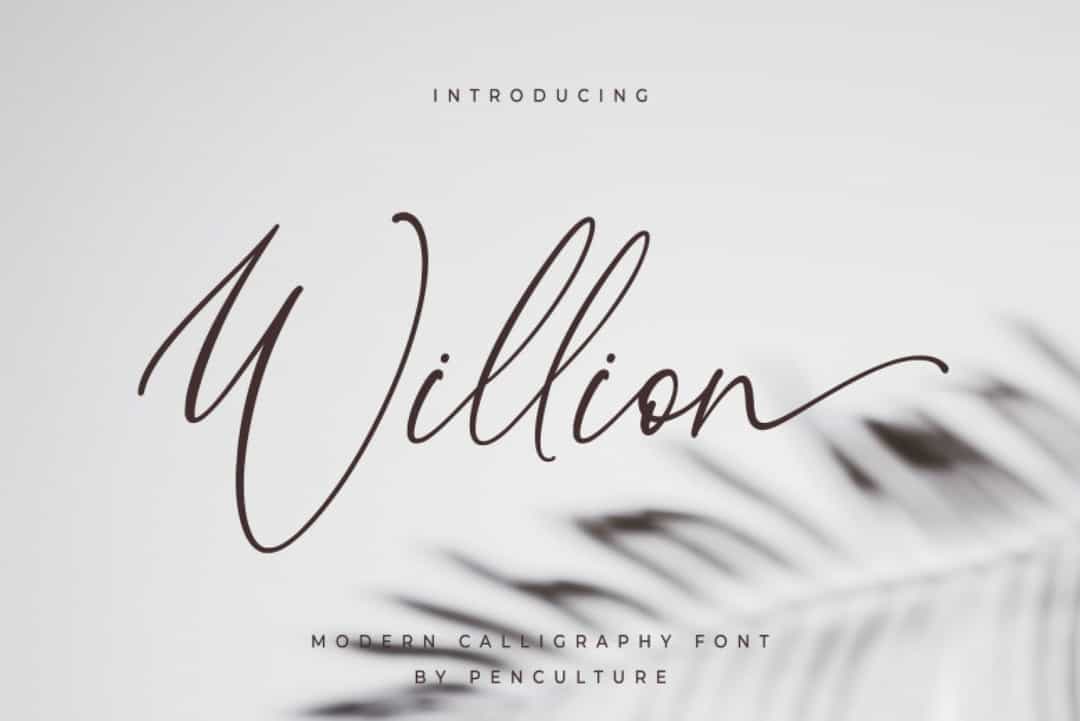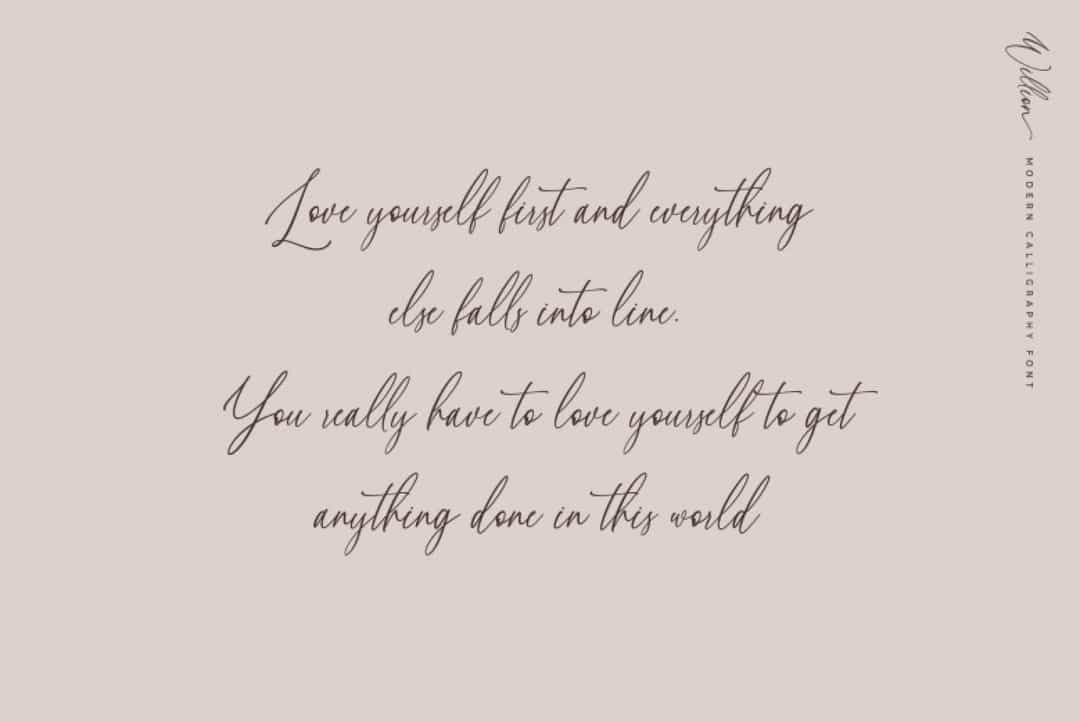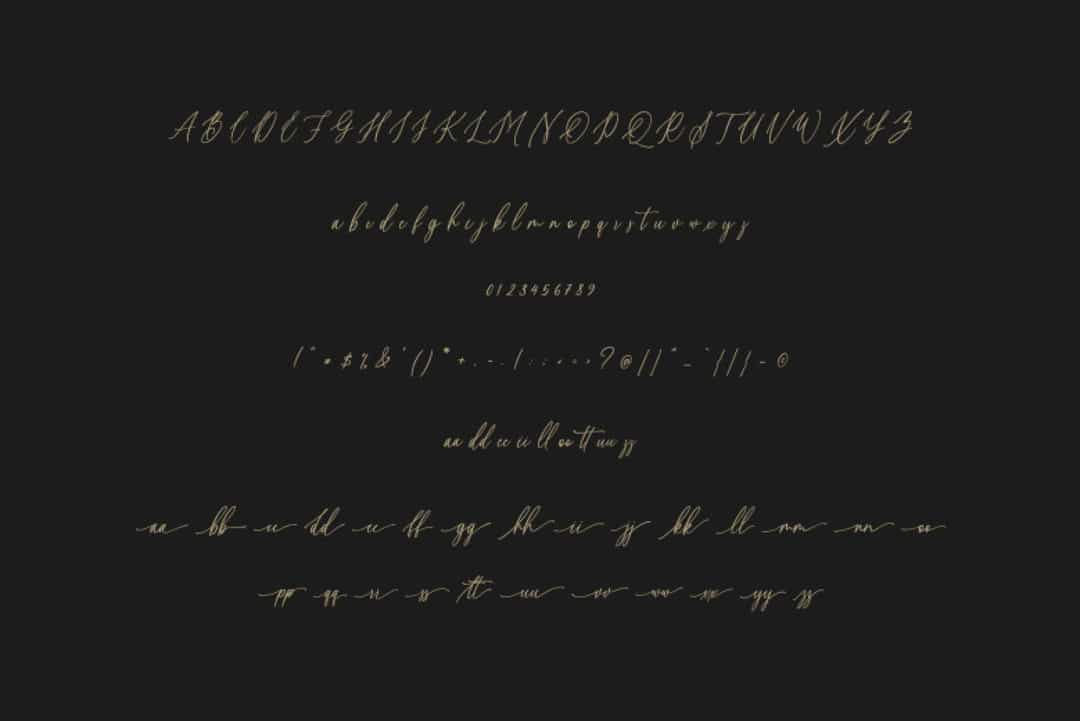
Willion Calligraphy Font is an elegant script font developed in collaboration with Pen Culture that can be used for signatures, logos and stationery projects – sure to add an impressive finish!